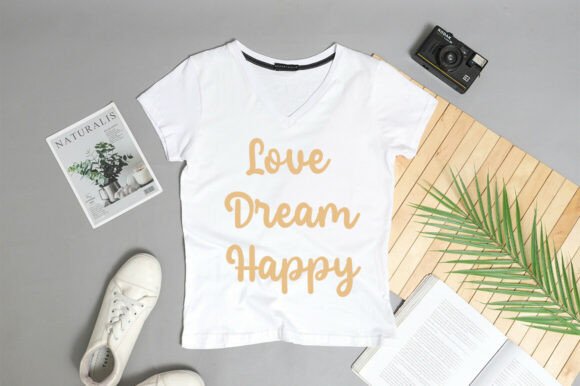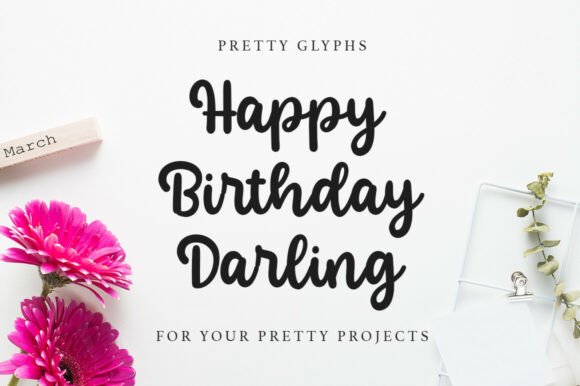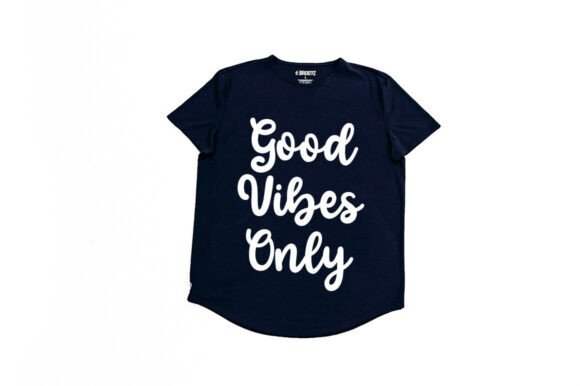
Introducing Delightful Font: The Ultimate Brush Script for Creative Expression
Are you tired of using the same old fonts that lack personality and flair? Look no further than Delightful Font, a stunning handwritten brush script that’s designed to add a touch of elegance and sophistication to your designs. Inspired by real brush lettering, this font is crafted to feel bold, expressive, and effortlessly stylish, making it perfect for creatives who want to make a statement.
The Inspiration Behind Delightful Font
Delightful Font is inspired by the natural, fluid strokes of a brush, giving each character a unique, handcrafted texture that’s full of personality. The font’s creator aimed to capture the essence of authentic brush lettering, with all its imperfections and quirks, to create a font that’s both modern and timeless. Whether you’re working on a branding project, social media content, or a craft project, Delightful Font is sure to bring a touch of creative energy to your design.
Key Features of Delightful Font
- Natural Strokes: Delightful Font features natural, fluid strokes that mimic the movement of a brush. This gives the font a dynamic, expressive feel that’s perfect for making a statement.
- Dynamic Movement: Each character in Delightful Font is designed to capture the movement and energy of brush lettering. This creates a sense of spontaneity and creativity, making your designs feel fresh and exciting.
- Handcrafted Texture: The font’s handcrafted texture gives it a unique, organic feel that’s perfect for creatives who want to add a touch of authenticity to their designs.
- Perfect Balance: Delightful Font strikes the perfect balance between casual freedom and modern aesthetics. This makes it suitable for a wide range of design projects, from branding and advertising to social media and crafting.
Who is Delightful Font for?
Delightful Font is designed for creatives who want to add a touch of personality and flair to their designs. Whether you’re a graphic designer, a crafty DIY enthusiast, or a social media influencer, this font is perfect for anyone who wants to make a statement. If you’re looking for a font that’s bold, expressive, and full of creative energy, Delightful Font is the perfect choice.
Using Delightful Font in Your Designs
Delightful Font is incredibly versatile and can be used in a wide range of design projects. Here are a few ideas to get you started:
- Branding: Use Delightful Font to create stunning brand identities that reflect your company’s personality and values.
- Social Media: Add a touch of elegance and sophistication to your social media content with Delightful Font.
- Crafting: Use Delightful Font to create beautiful, handmade crafts that showcase your creativity and skill.
- Advertising: Make your advertising stand out with Delightful Font’s bold, eye-catching design.
Why Choose Delightful Font?
There are many fonts on the market that claim to be bold and expressive, but Delightful Font stands out from the crowd. Here are just a few reasons why:
- Unique Design: Delightful Font’s unique design makes it perfect for creatives who want to make a statement.
- High-Quality: The font is crafted with high-quality, precise lines that ensure it looks stunning in any design.
- Full of Personality: Delightful Font is full of personality and flair, making it perfect for creatives who want to add a touch of elegance and sophistication to their designs.
Delightful Font is a stunning handwritten brush script that’s perfect for creatives who want to add a touch of personality and flair to their designs. With its natural strokes, dynamic movement, and handcrafted texture, this font is sure to bring a touch of creative energy to any project. Whether you’re working on branding, social media content, or a craft project, Delightful Font is the perfect choice. So why wait? Download Delightful Font today and start creating stunning designs that showcase your creativity and skill.